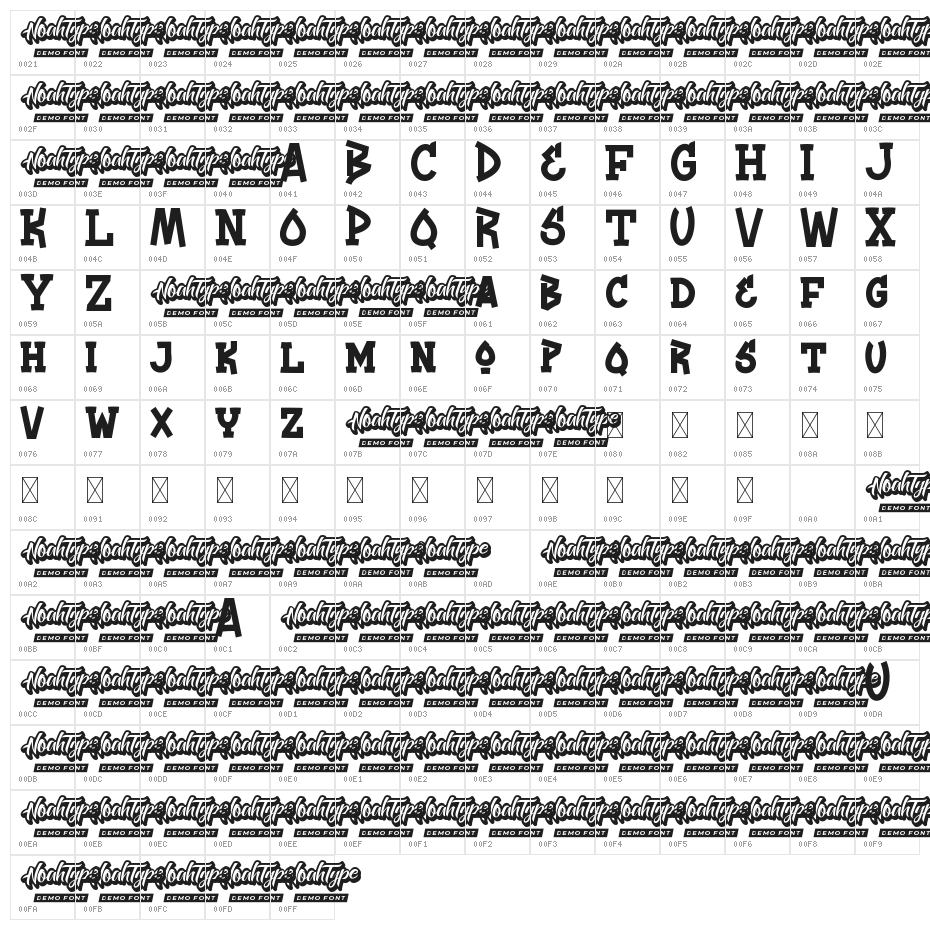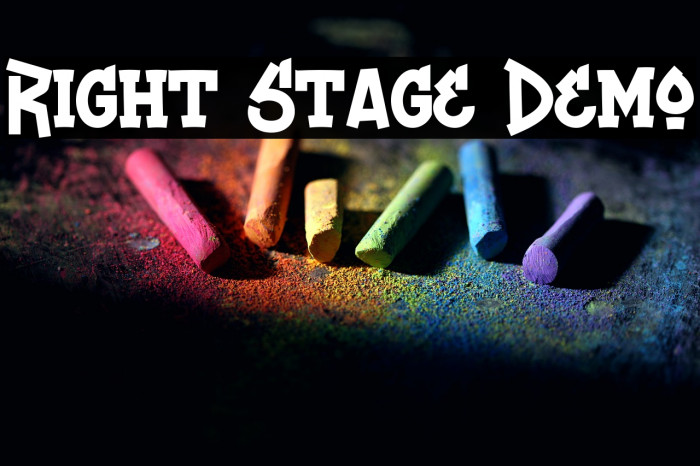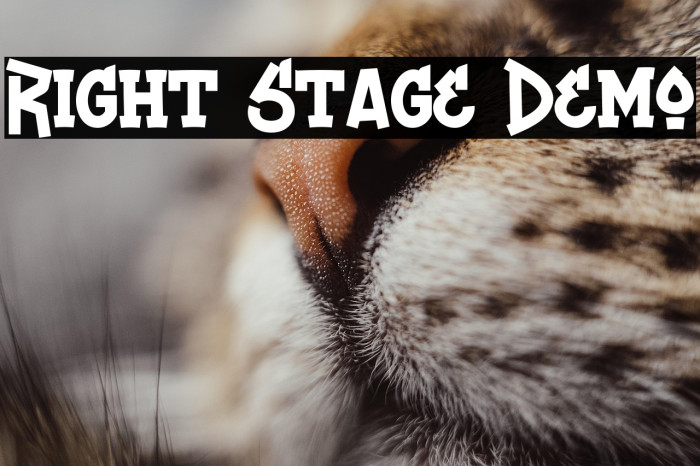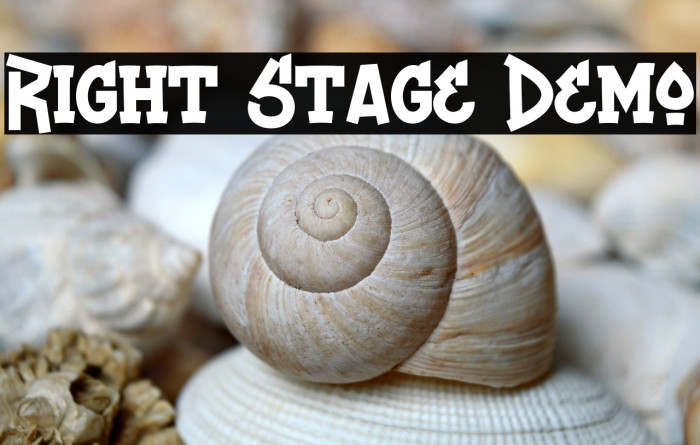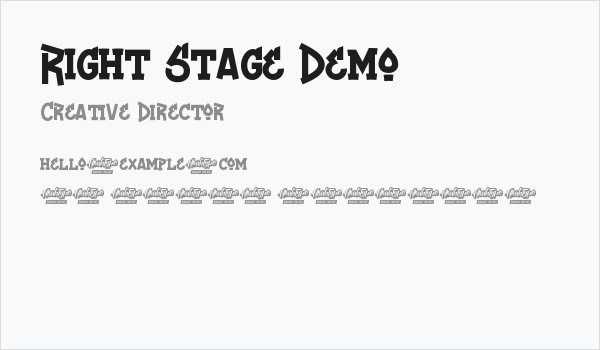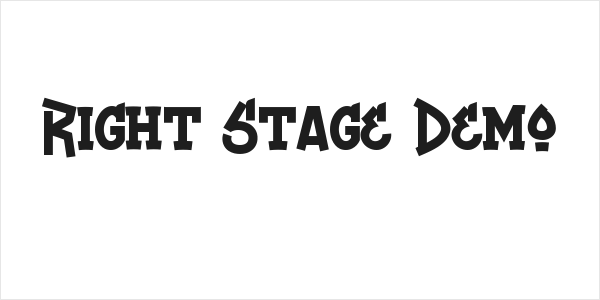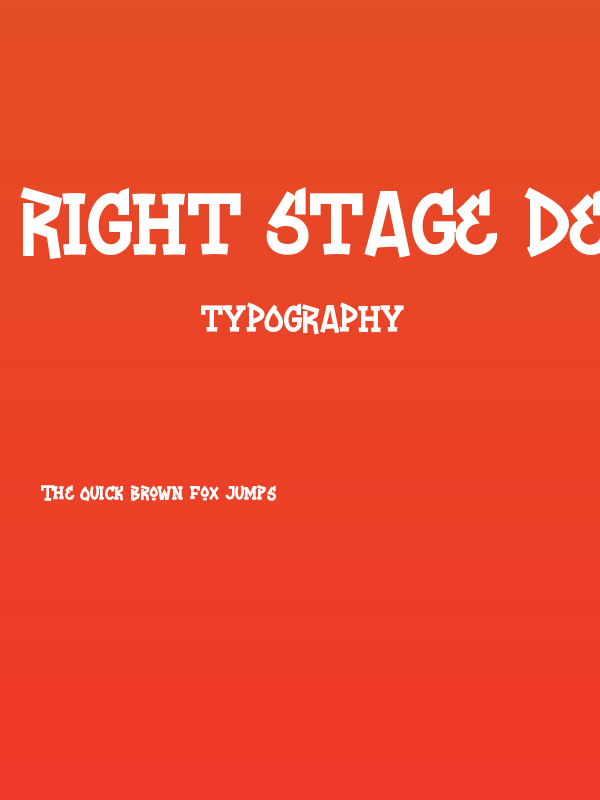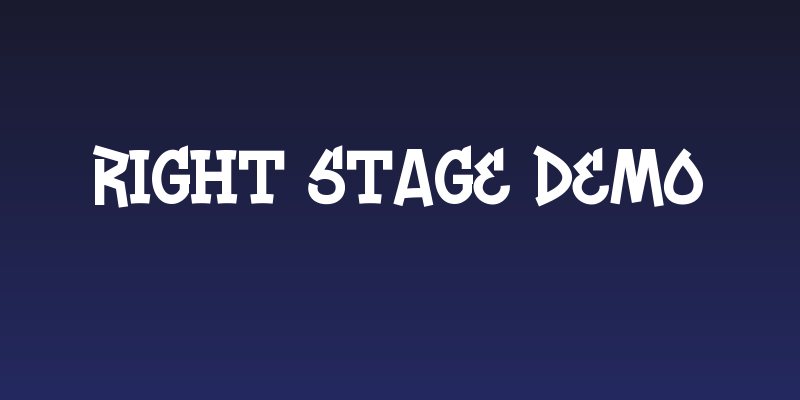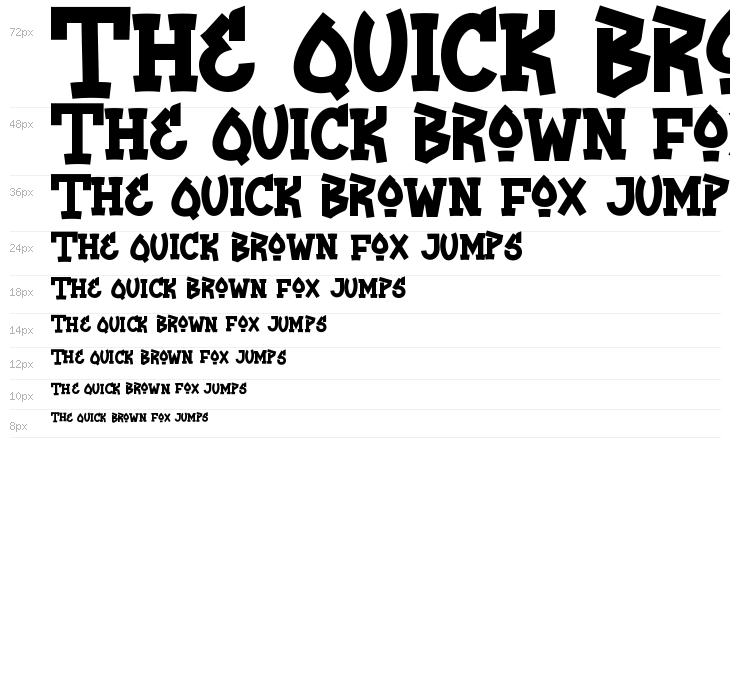
Right Stage Demo Font
Right Stage Demo Description
This font features a bold and dynamic design with a strong presence. The uppercase letters are characterized by sharp angles and a slightly condensed form, giving them a powerful and impactful appearance. The strokes are thick and consistent, providing a sense of stability and strength. The overall style is modern with a touch of edginess, making it suitable for attention-grabbing headlines and titles. The font's unique character shapes, such as the angular 'A' and the distinctive 'R', add a creative flair that sets it apart from more traditional typefaces. Its bold nature makes it ideal for projects that require a strong visual impact.
| Proposed Projects | Ideal for headlines, posters, branding, and any project requiring a bold statement. |